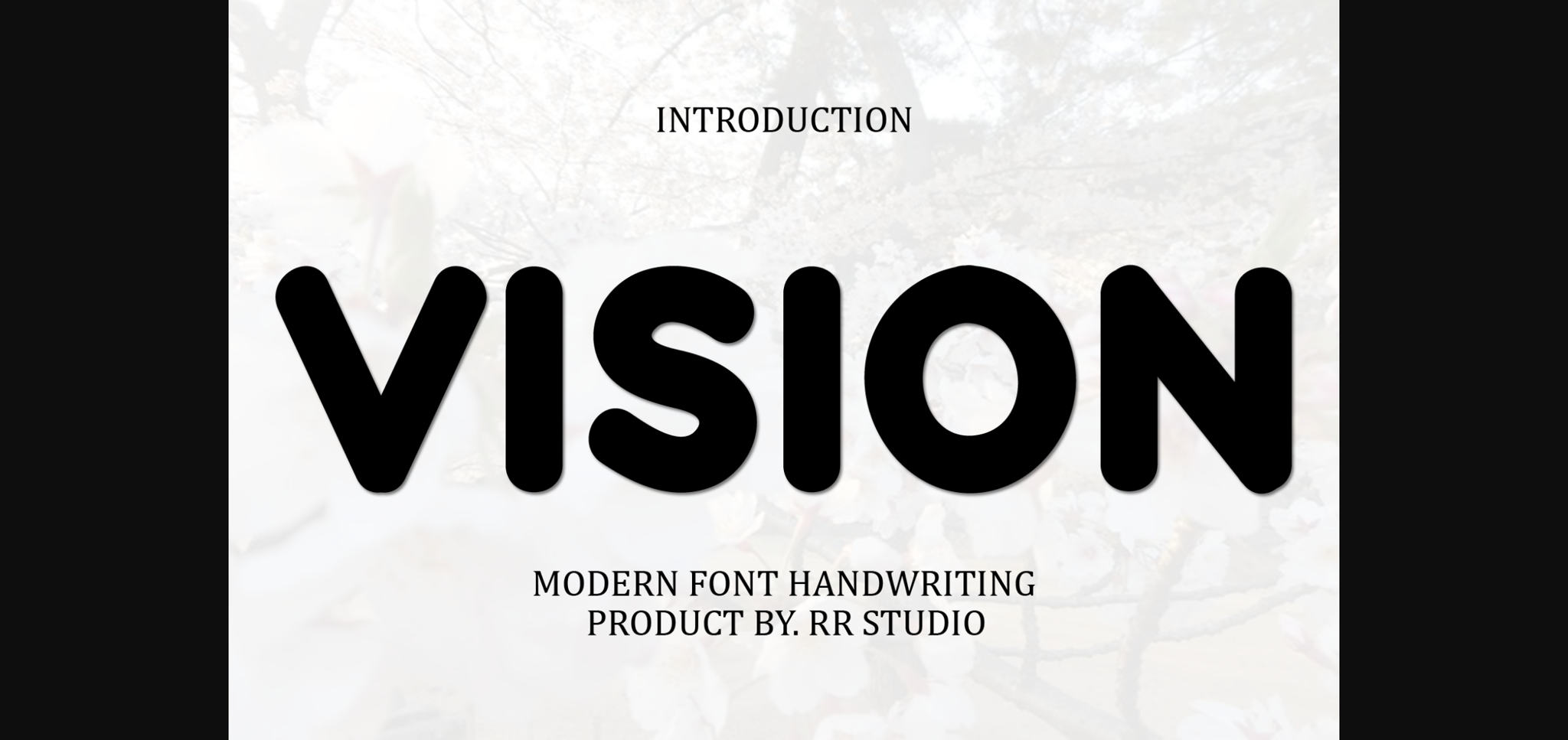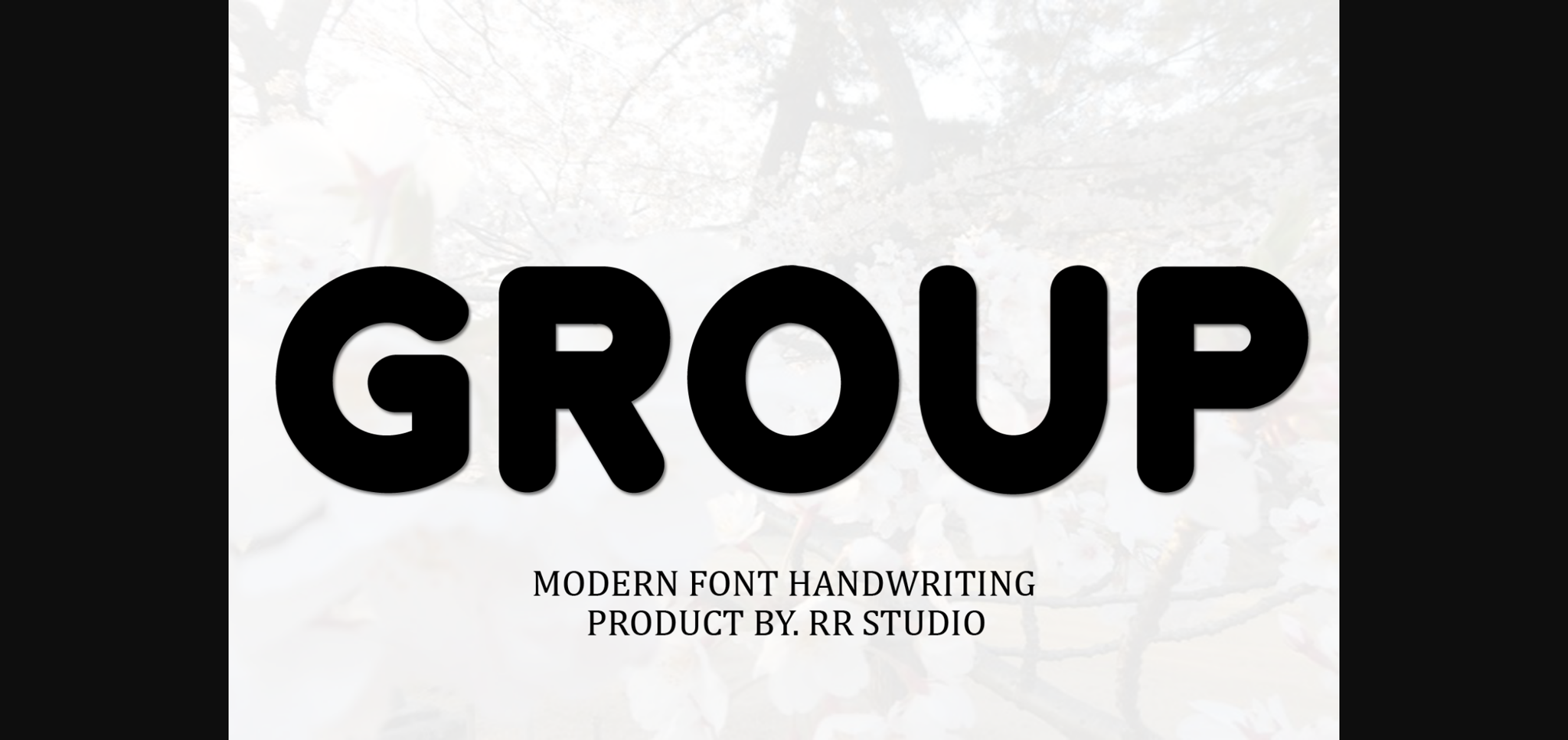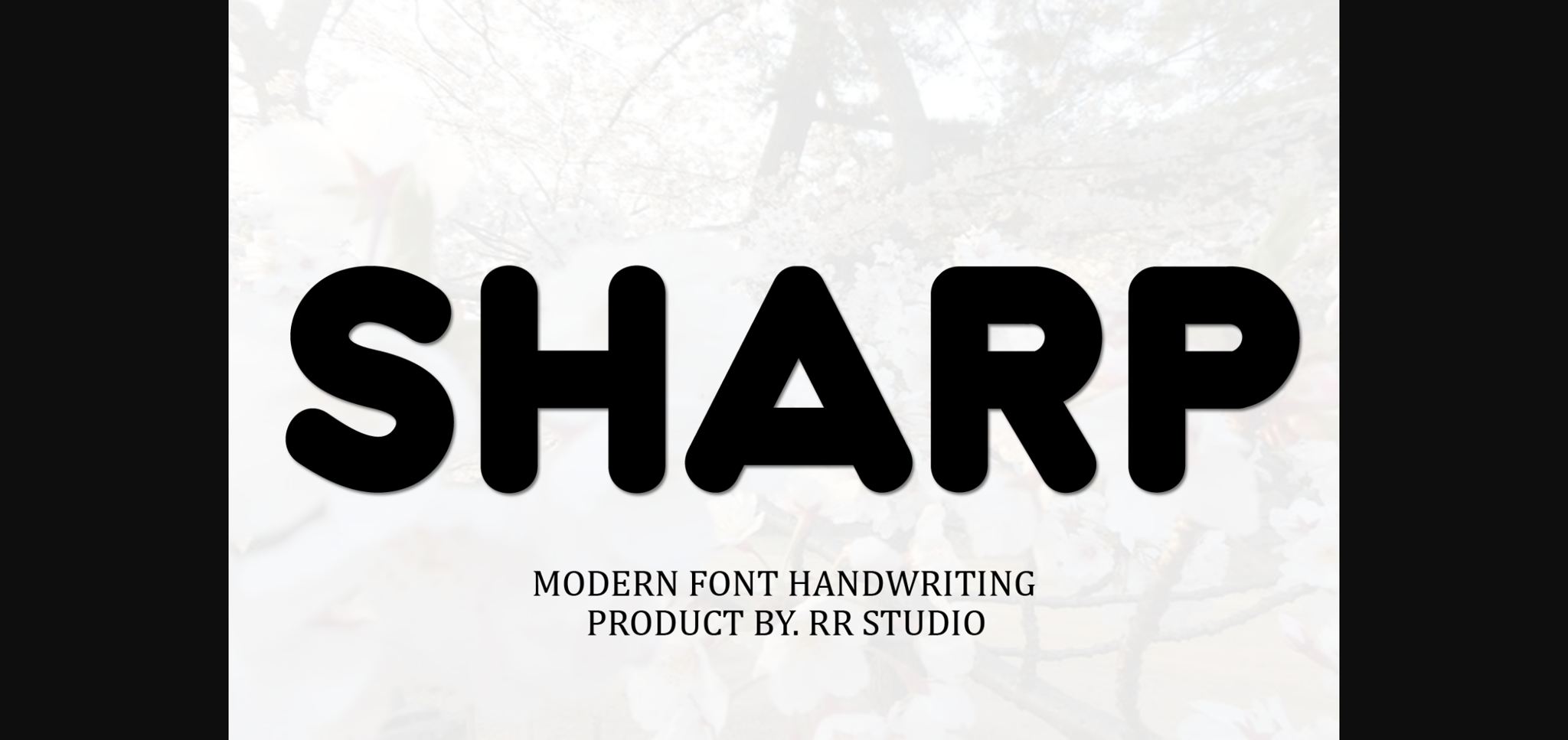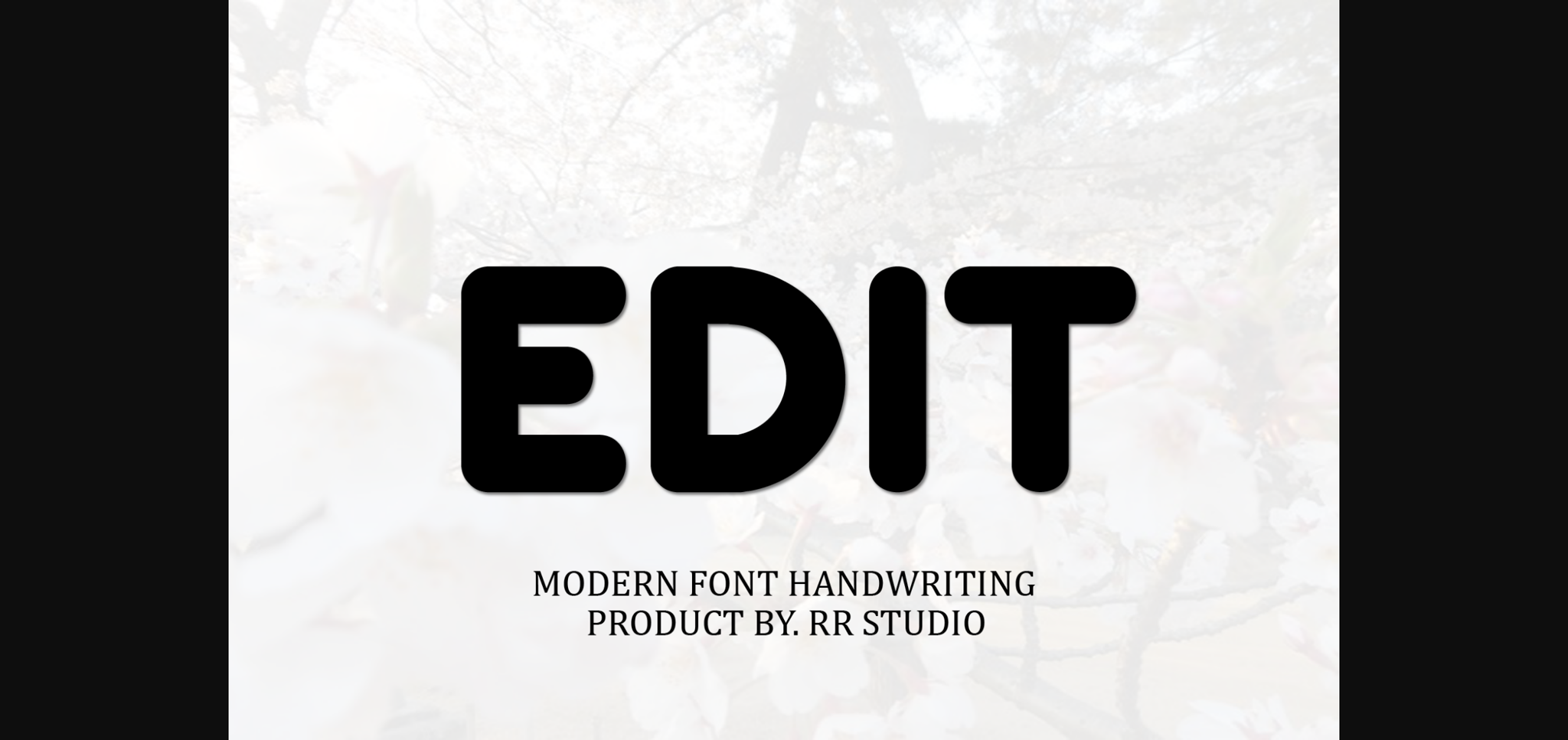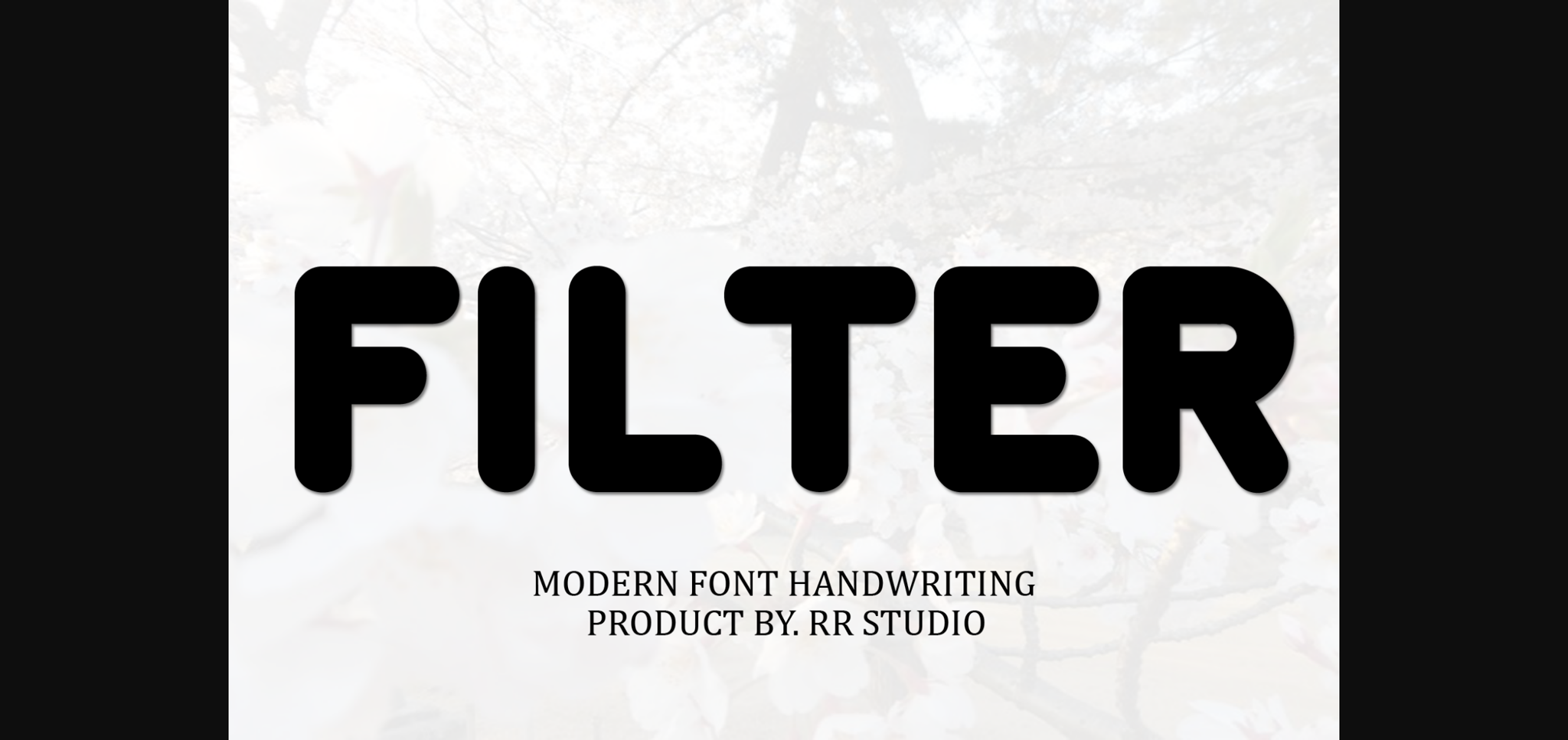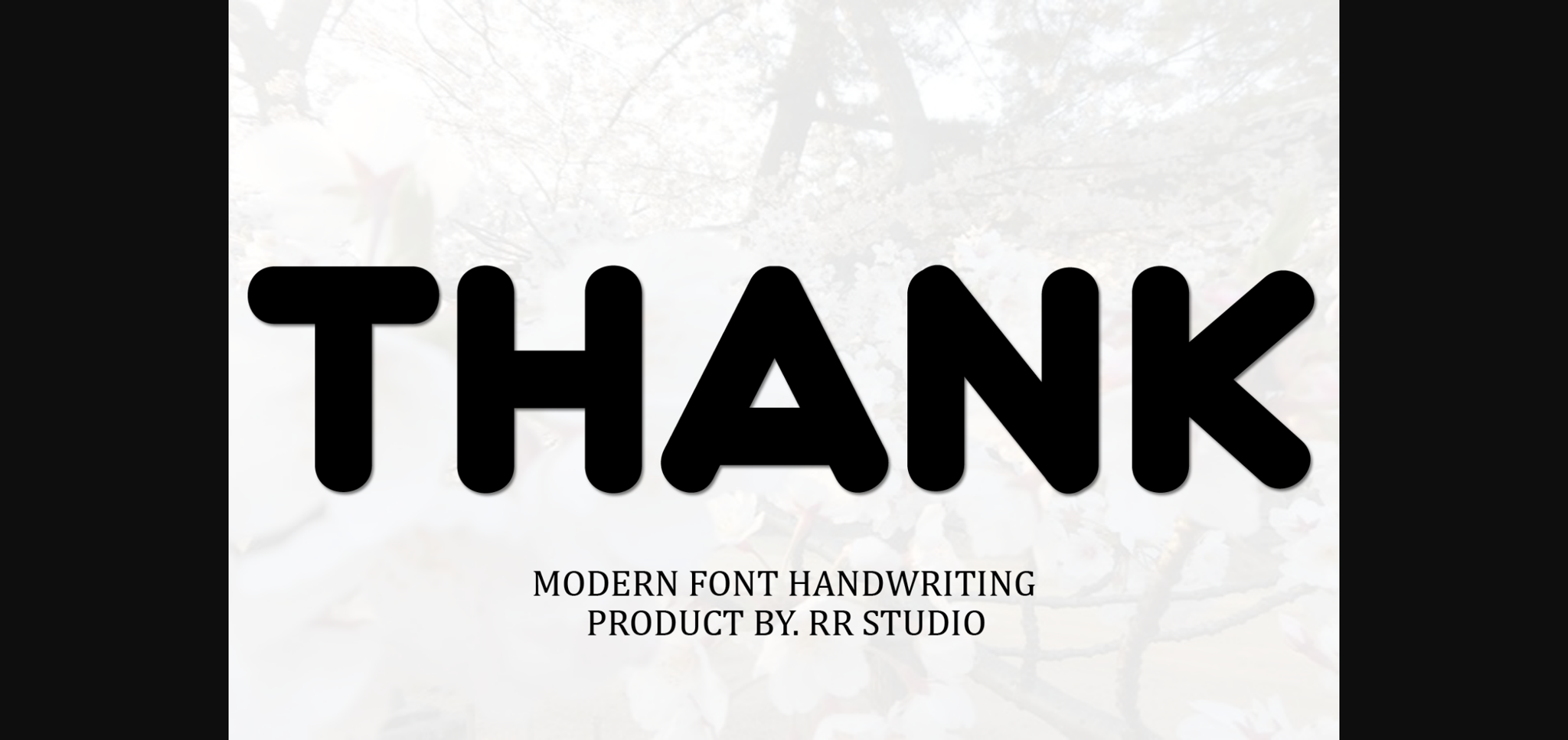
HomeSans Serif FontsVision Font Sans Serif Fonts Vision Font FacebookXPinterestWhatsApp 1 of 8 ... Vision Font Poster 2... Vision Font Poster 3... Vision Font Poster 4... Vision Font Poster 5... Vision Font Poster 6... Vision Font Poster 7... Vision Font Poster 8... About Vision Font Vision is a stylish and incredibly elegant sans serif font. It looks stunning on wedding invitations, thank you cards, quotes, greeting cards, logos, business cards and every other design which needs a handwritten touch. DOWNLOAD NOW People also explored Apple Font Mounting Font Blank Notebook Font Clarendon Paint Baby Girl Font Handsome Font Guten Font Bastony Signature Font Getting Better Font 351 0 TagsVisionVision Font Previous articleNovaria FontNext articleGrouthy Font LEAVE A REPLY Cancel reply Comment: Please enter your comment! Name:* Please enter your name here Email:* You have entered an incorrect email address! Please enter your email address here Website: Save my name, email, and website in this browser for the next time I comment. Personal Use Free Love Heart Personal Use Free Read more about this font Gunplay Personal Use Free Read more about this font Girl Personal Use Free Read more about this font Frozdotre Personal Use Free Read more about this font BLOG Free vs Paid Fonts: Why Investing in Premium Fonts Is Worth It Free vs Paid Fonts: Why Premium Fonts Are Worth It in 2025 The debate of free vs paid fonts continues in the design world. While... 5 Fonts That Will Dominate Design Trends in 2026 Top 7 Google Fonts Alternatives for Faster and Privacy-Friendly Web Design (2025) How to Install and Use Fonts on Windows, macOS, and Web Projects